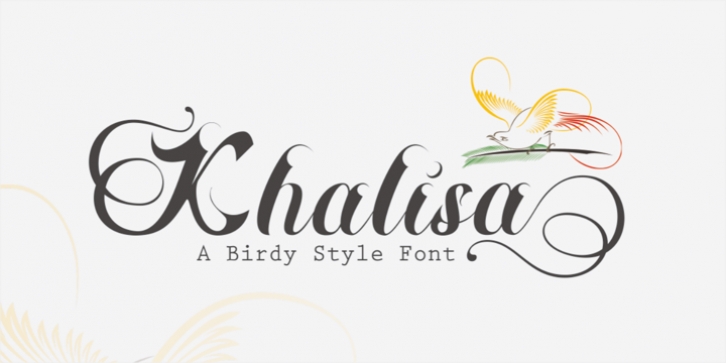
Khalisa was designed by Nanda Type and published by Nandatype Studio. Khalisa contains 1 style. The font is currently #50 in Hot New Fonts.
Khalisa is a beautiful and charming display font with a bold vibe. Get inspired by bird feather.
Khalisa font suitable for standout designs and make any design idea into a true standout.